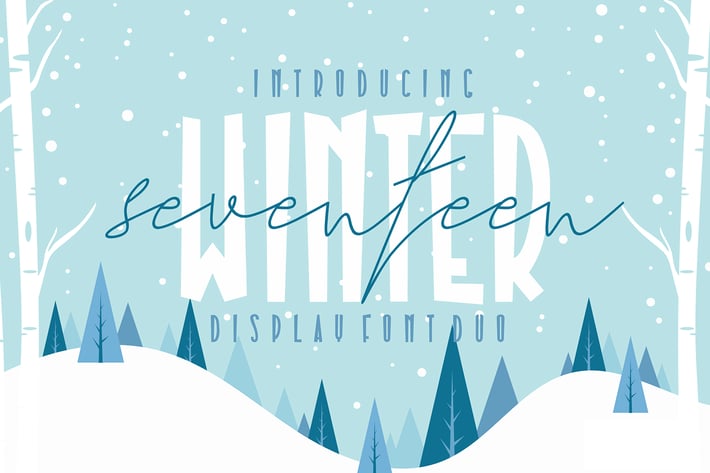
Seventeen Winter - Font Duo
Seventeen Winter is a cute and fashionable font duo with signature and regular touch it was created to help you designing makes gorgeous logos, posters, wedding invitations, blog posts, social media, apparel, and more!